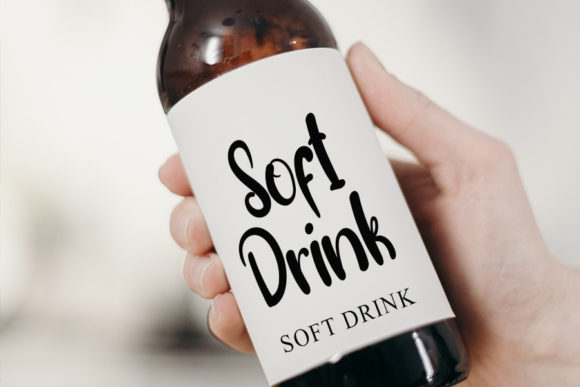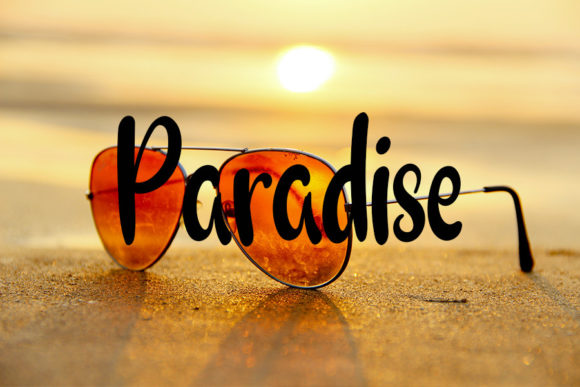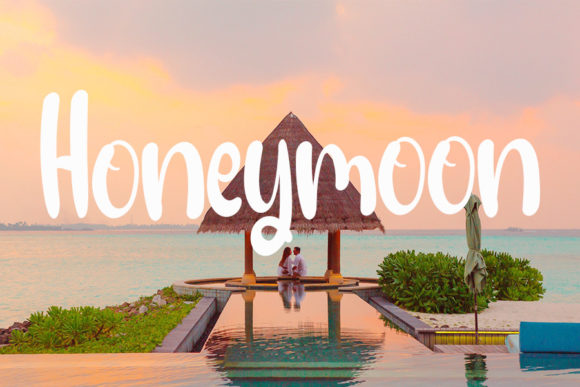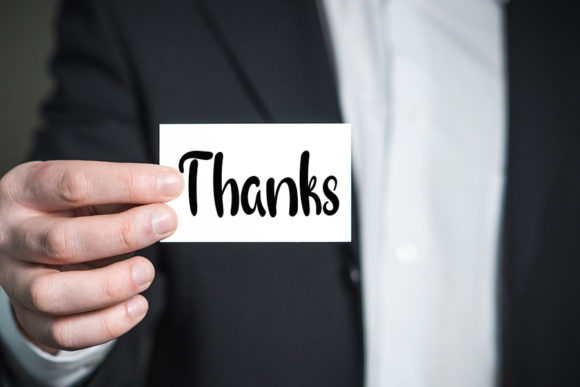
Introduction to Dindar Font
Dindar is a casual handwritten font, carefully designed to become a true favorite.
It maintains its classy calligraphic influences while feeling contemporary and fresh Fall in love with it, and let it bring your projects to the highest levels.